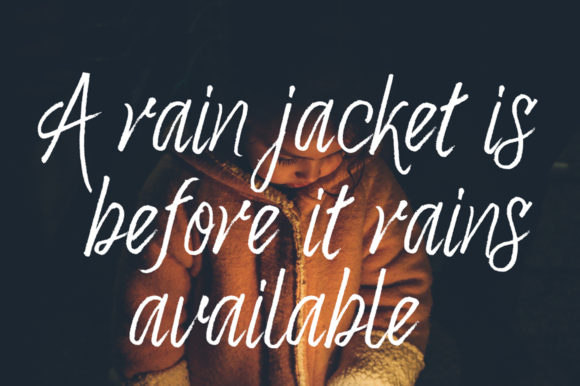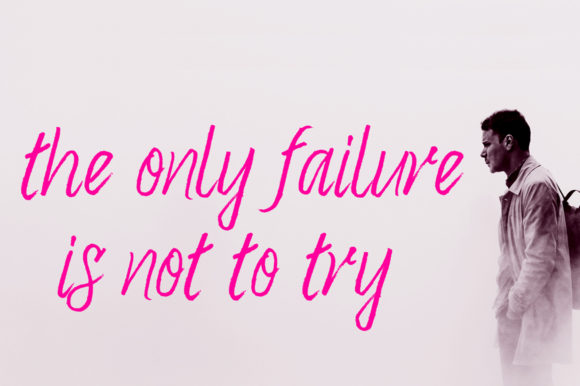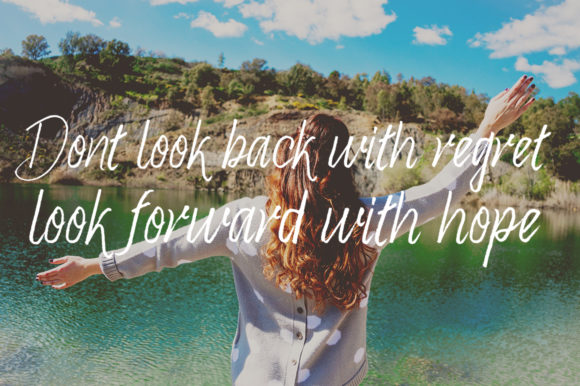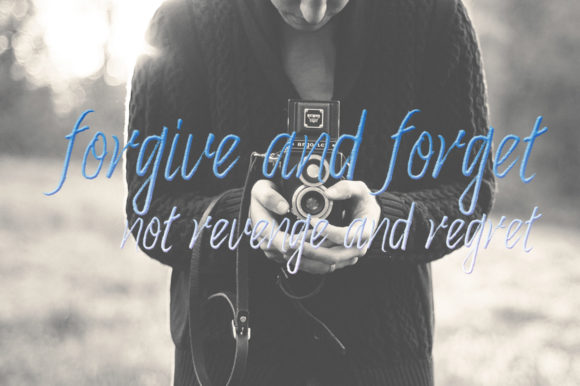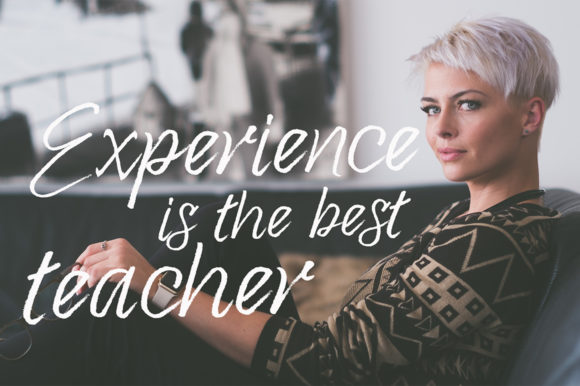
Whitney Font
About Whitney Font
Whitney is a new modern script font featuring an irregular baseline. With its contemporary approach to design, it will take any creative idea to the next level.